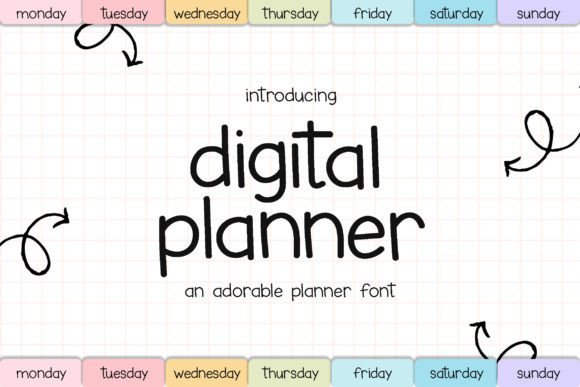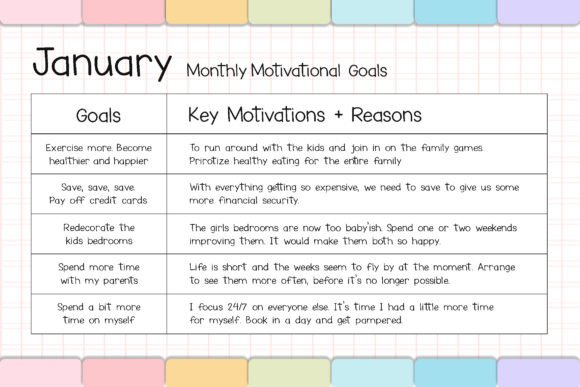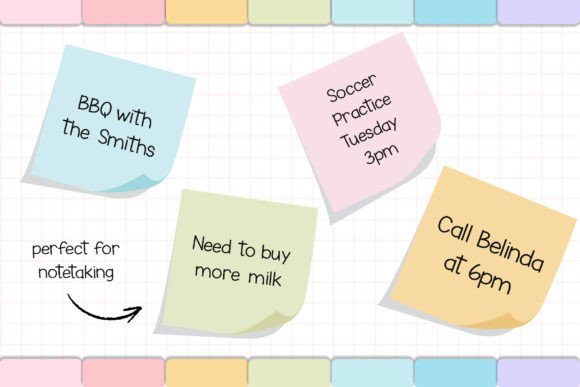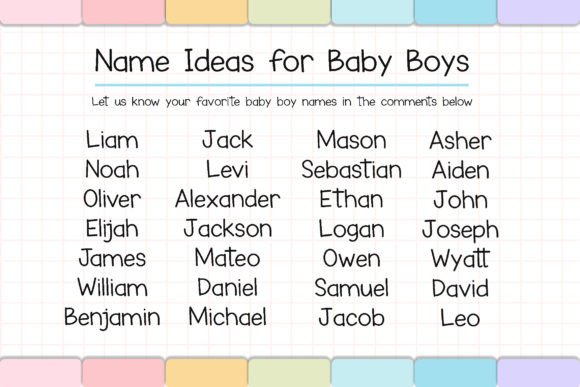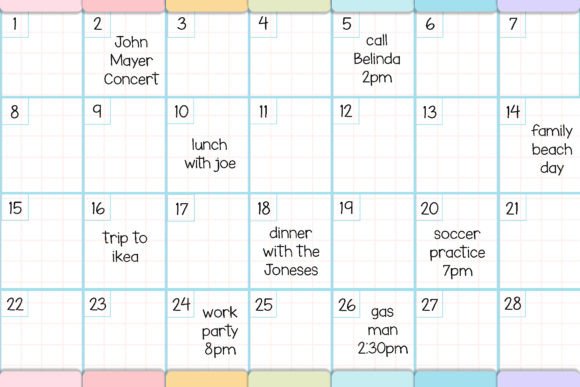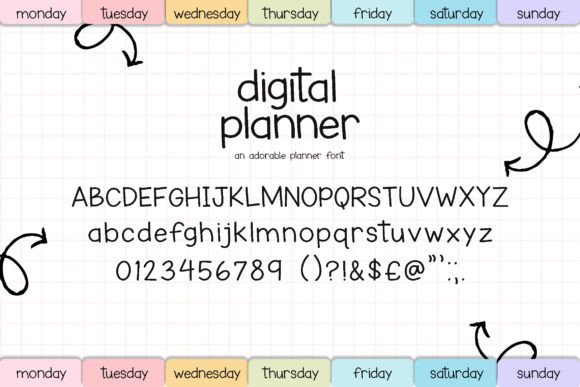
Have you ever found yourself stuck on a creative project, searching for the perfect font to bring it all together? We’ve all been there – pouring over font options, trying to find that one font that perfectly captures the essence of our design. It’s a moment of pure frustration, until suddenly, it hits us – that perfect font that makes our project shine.
That’s where the Digital Planner Font comes in – a neat and casual handwritten font that’s perfect for a wide range of creative projects. Whether you’re using it for crafts, digital design, presentations, or making greeting cards, this font has the potential to become your favorite go-to font, no matter the occasion. As a designer, you know how valuable it is to have a versatile font at your disposal – and the Digital Planner Font is no exception.
Digital Planner Font Key Features
- Unique Characteristics: The font features a clean and modern design, with a focus on readability and ease of use, making it ideal for digital planners and organizers.
Digital Planner Font Review
Overall, I was quite excited to try out the Digital Planner Font. It has a lot of potential, but it also comes with some limitations. Let’s dive in and see what it’s all about.
- Unique and modern design: The font has a unique and modern design that’s perfect for digital planners and organizers.
- Easy to read: The font is easy to read, even in smaller sizes, which makes it perfect for digital planners and journals.
- Customizable: The font comes with a range of customization options, including different colors and sizes.
- Limited character set: The font has a limited character set, which means it may not be suitable for longer texts or documents.
- No italic or bold options: The font does not come with italic or bold options, which can be a limitation for some users.
- Not suitable for all digital devices: The font may not display well on all digital devices, particularly those with lower resolutions.
The Digital Planner Font is a great option for those who need a unique and modern font for their digital planners and organizers. However, it does come with some limitations that may not make it suitable for all users. With a bit more development and customization options, this font could be a top contender in the digital font market.
Use the Digital Planner Font to create visually appealing digital planners, journals, and other printables. Experiment with different font sizes and styles to create a unique look. Consider pairing the font with other design elements, such as graphics and colors, to create a cohesive design.
The Digital Planner Font is commonly used for creating digital planners, journals, and other printables. It’s also used for designing worksheets, templates, and other educational materials. The font is versatile and can be used for a variety of purposes, from personal use to commercial projects.